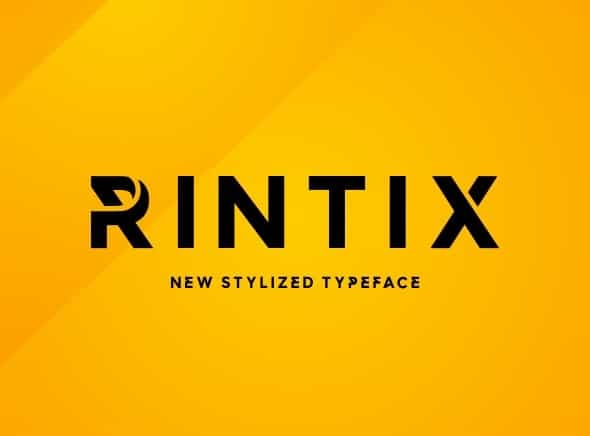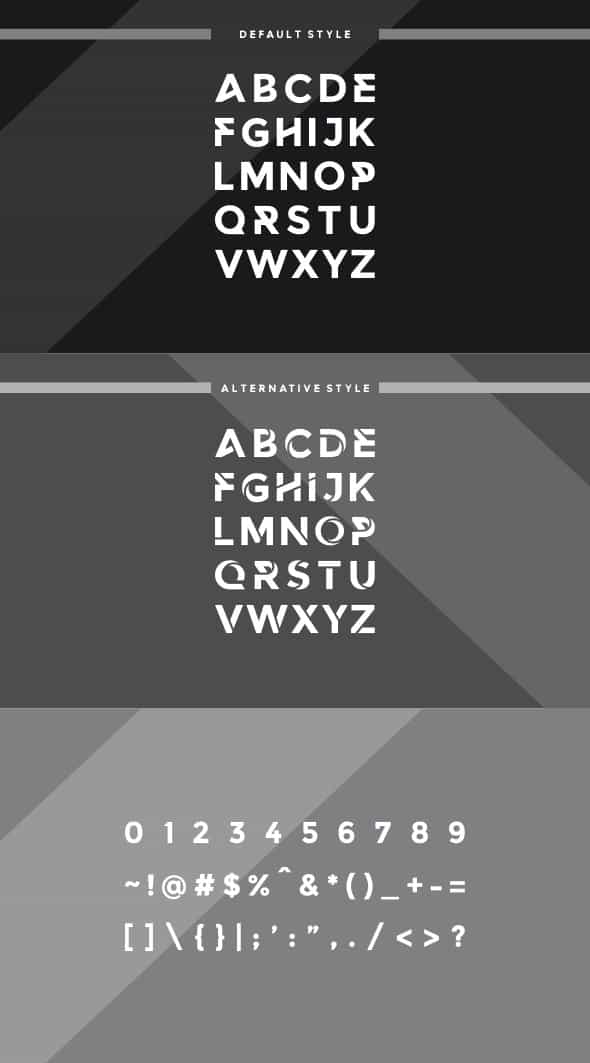
Rintix Sans Serif Font is an elegant font with clean, sophisticated lines. Perfect for corporate cards, business cards, brochures, logos and posters etc. This font comes with alternate typefaces for every letter from A to Z which can be used to create logos or create other visuals. Please let me know if there are any issues with this form.